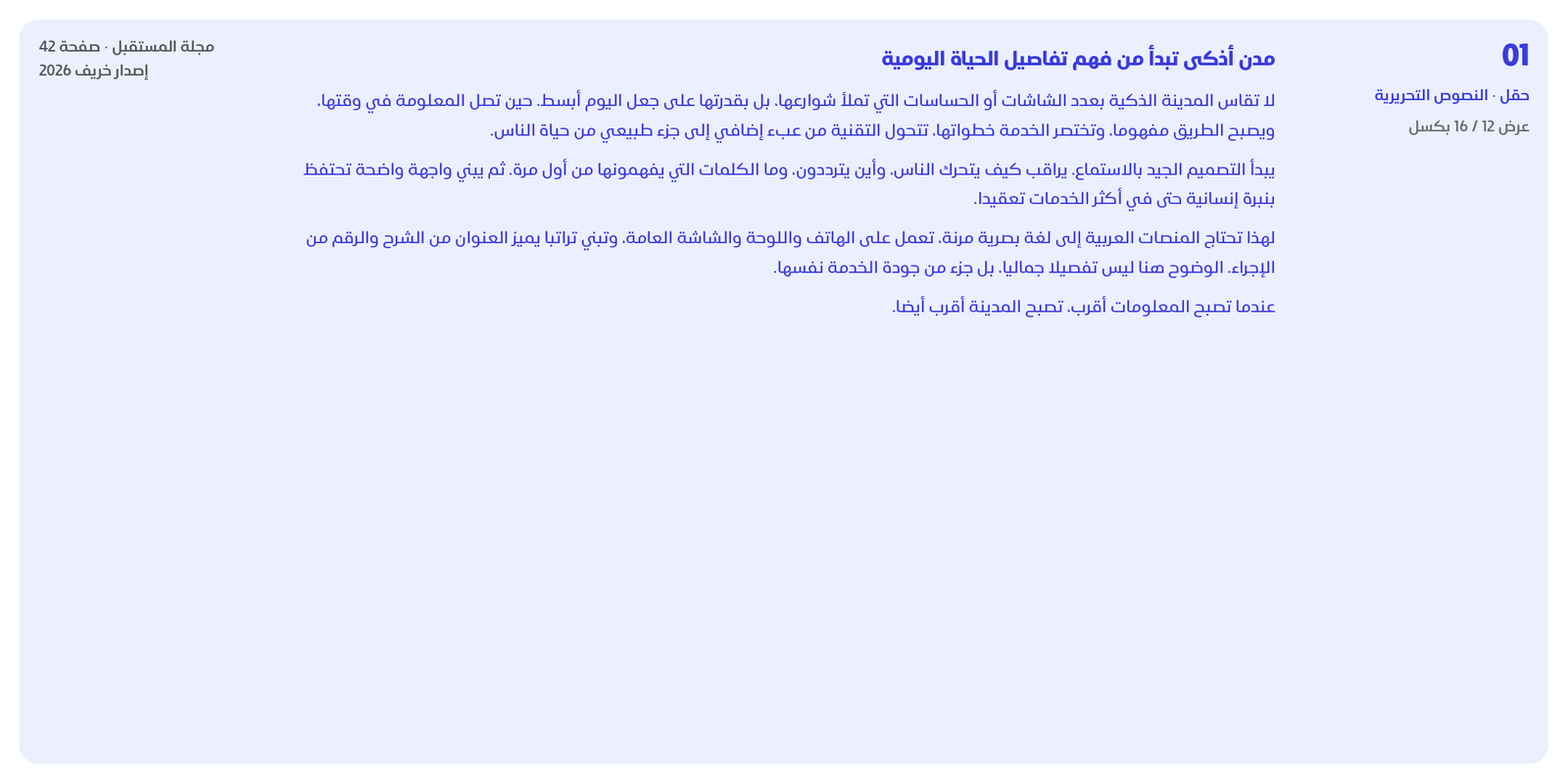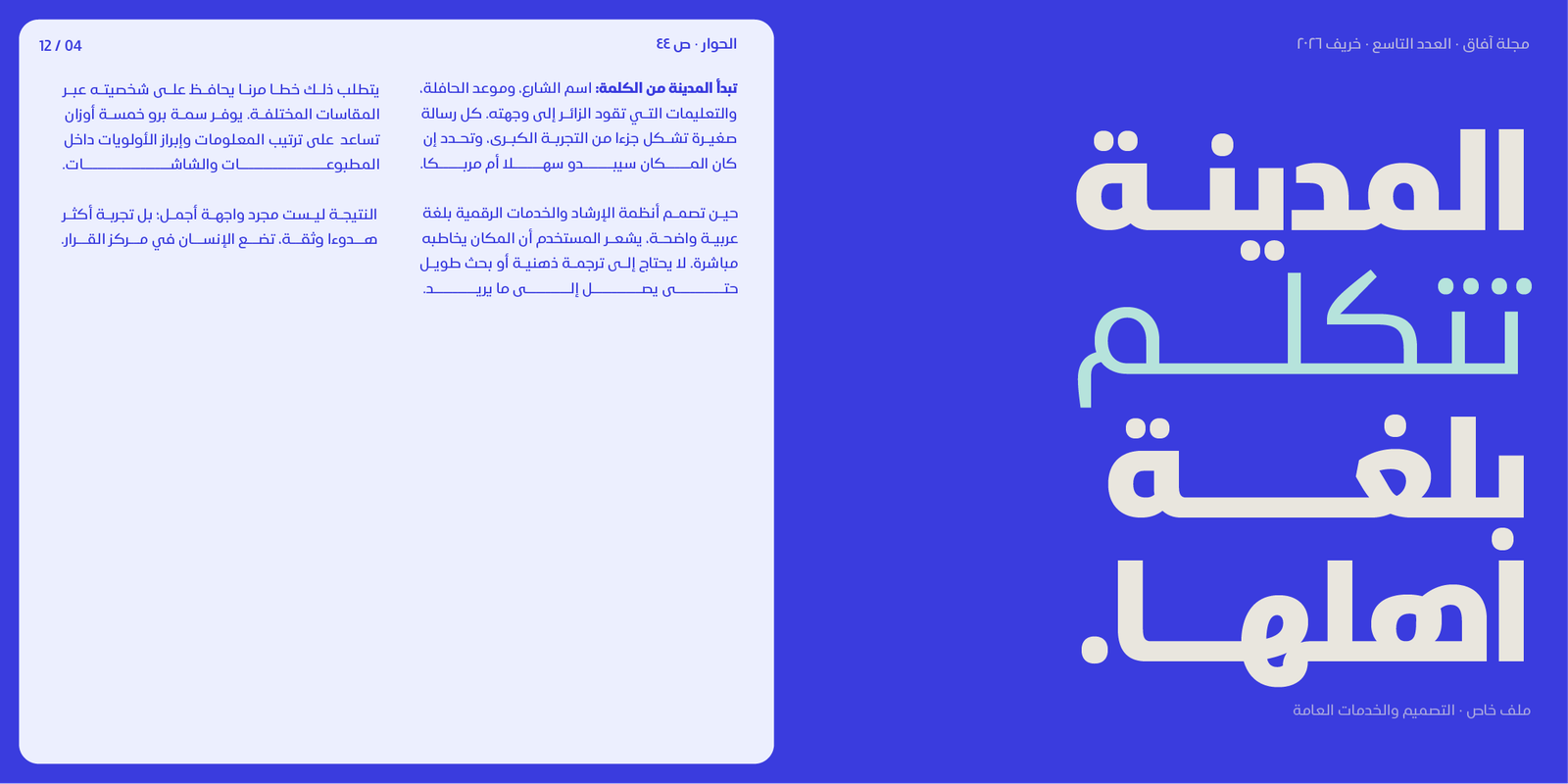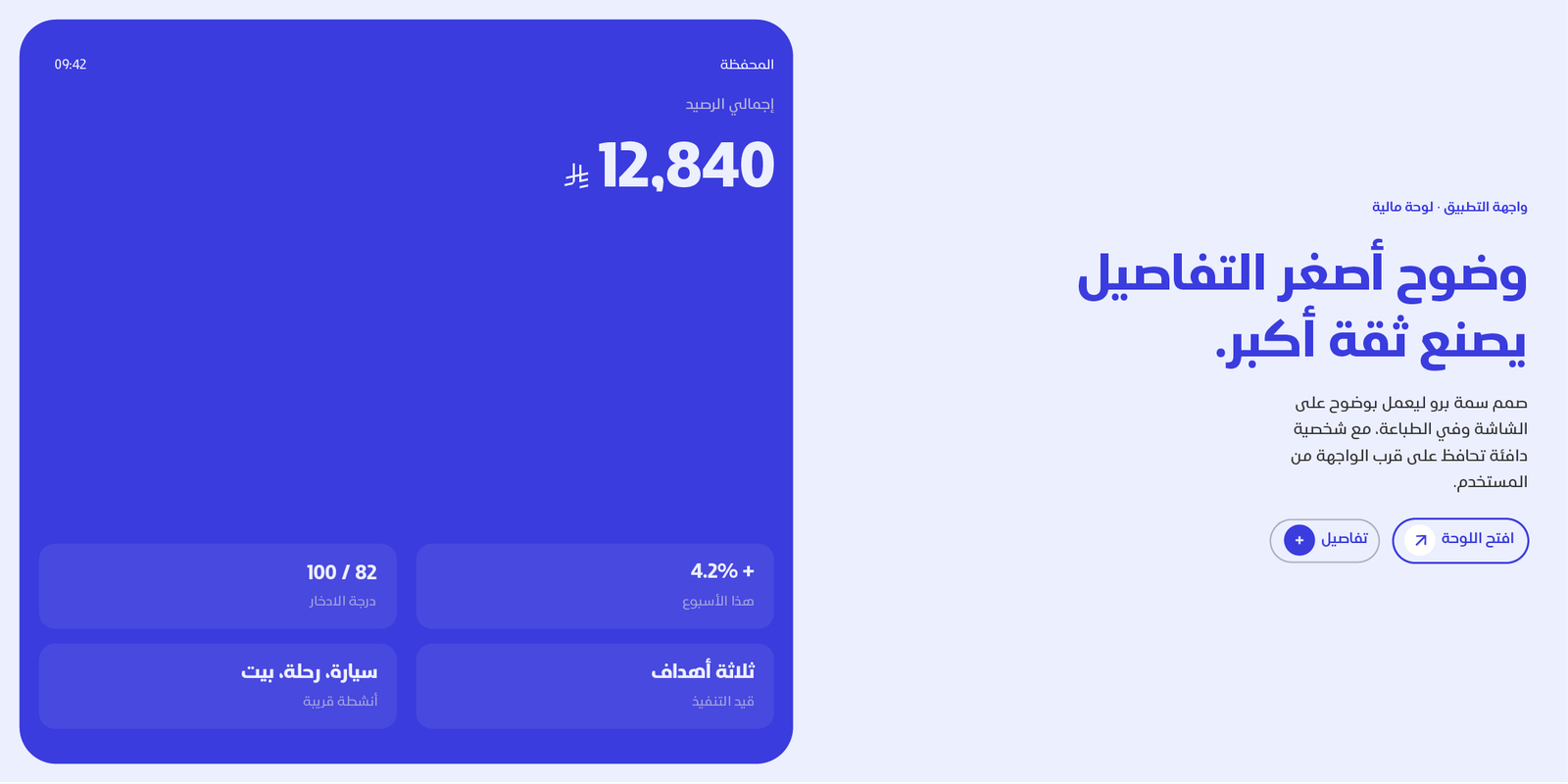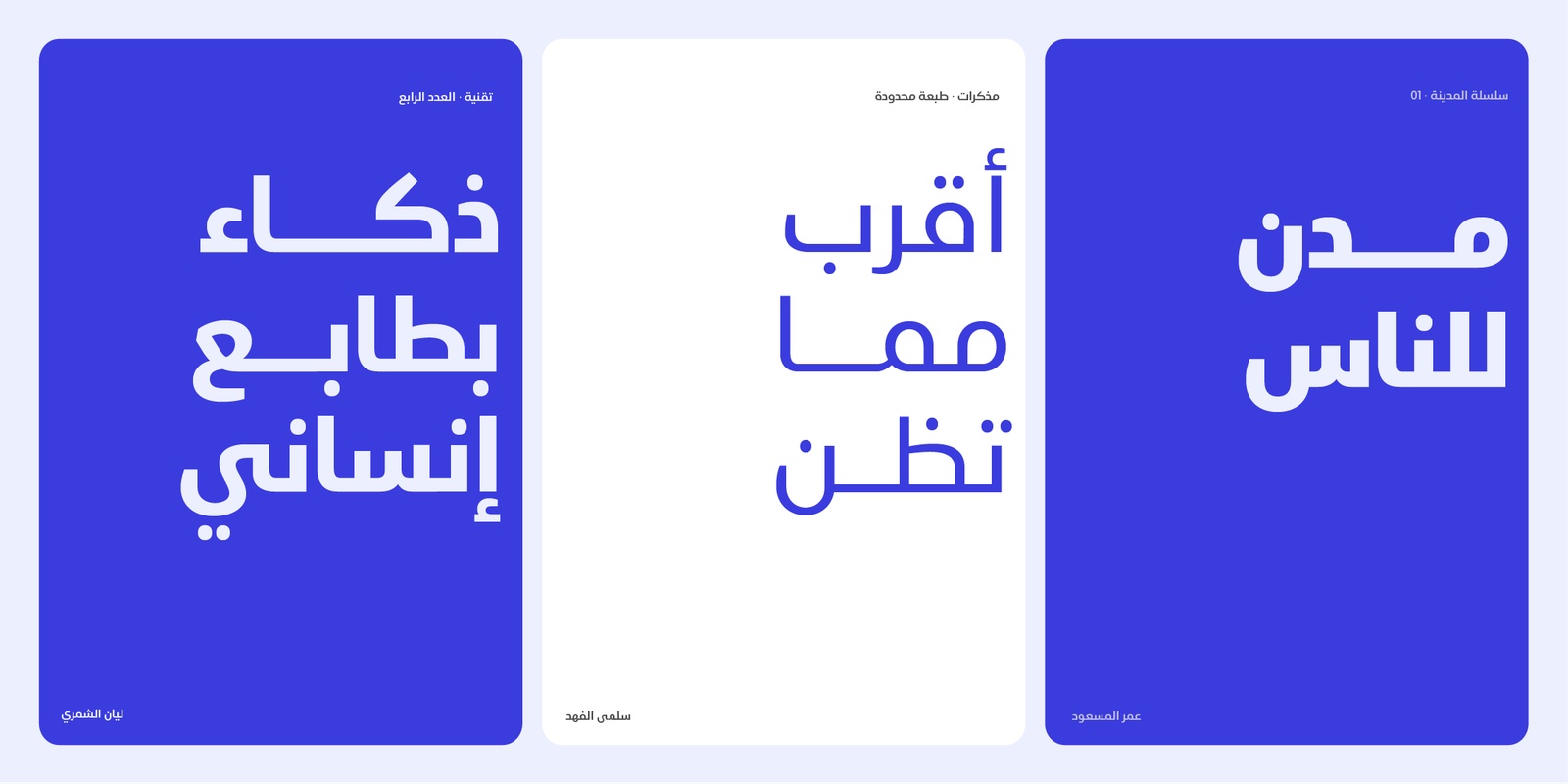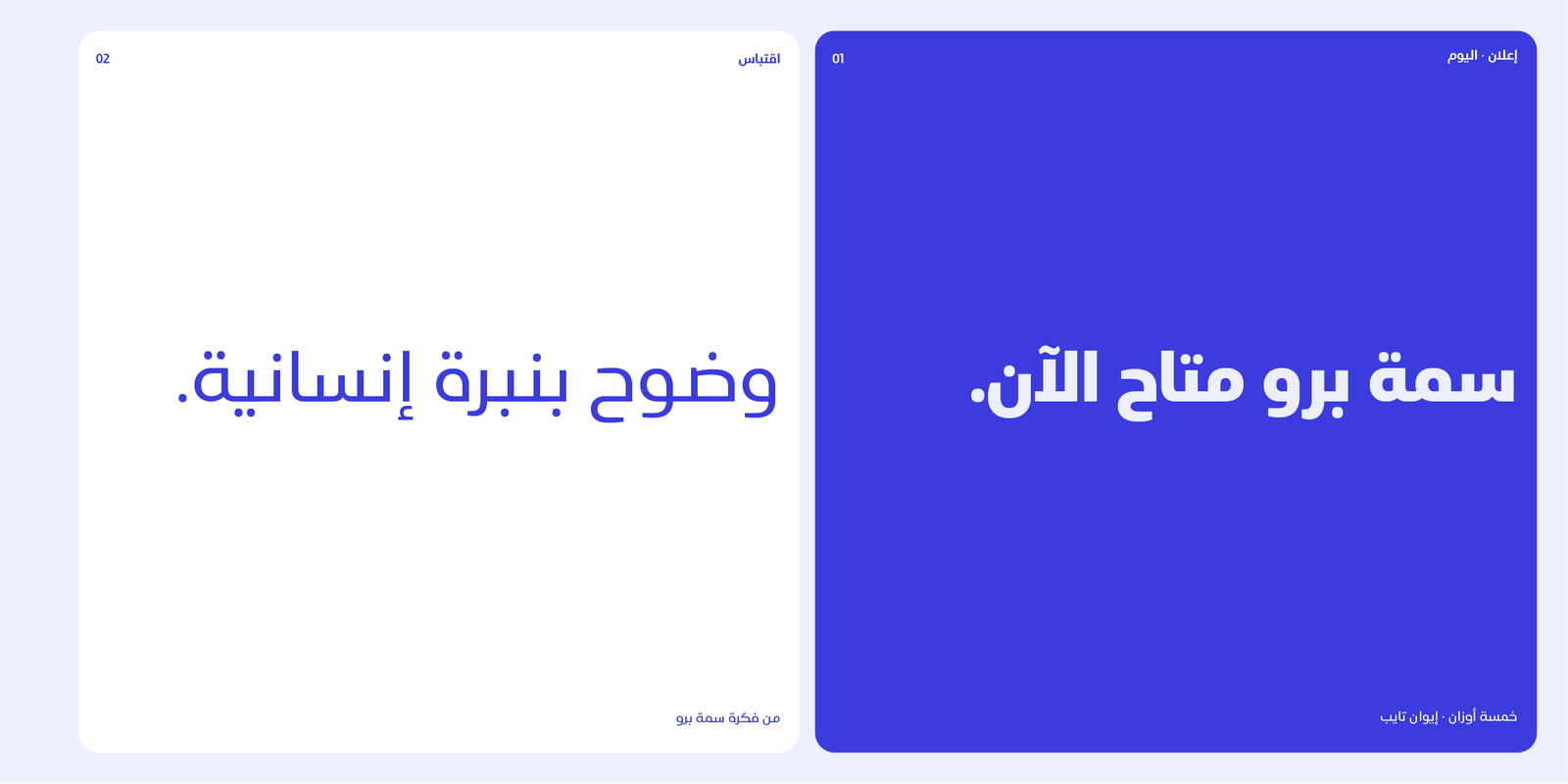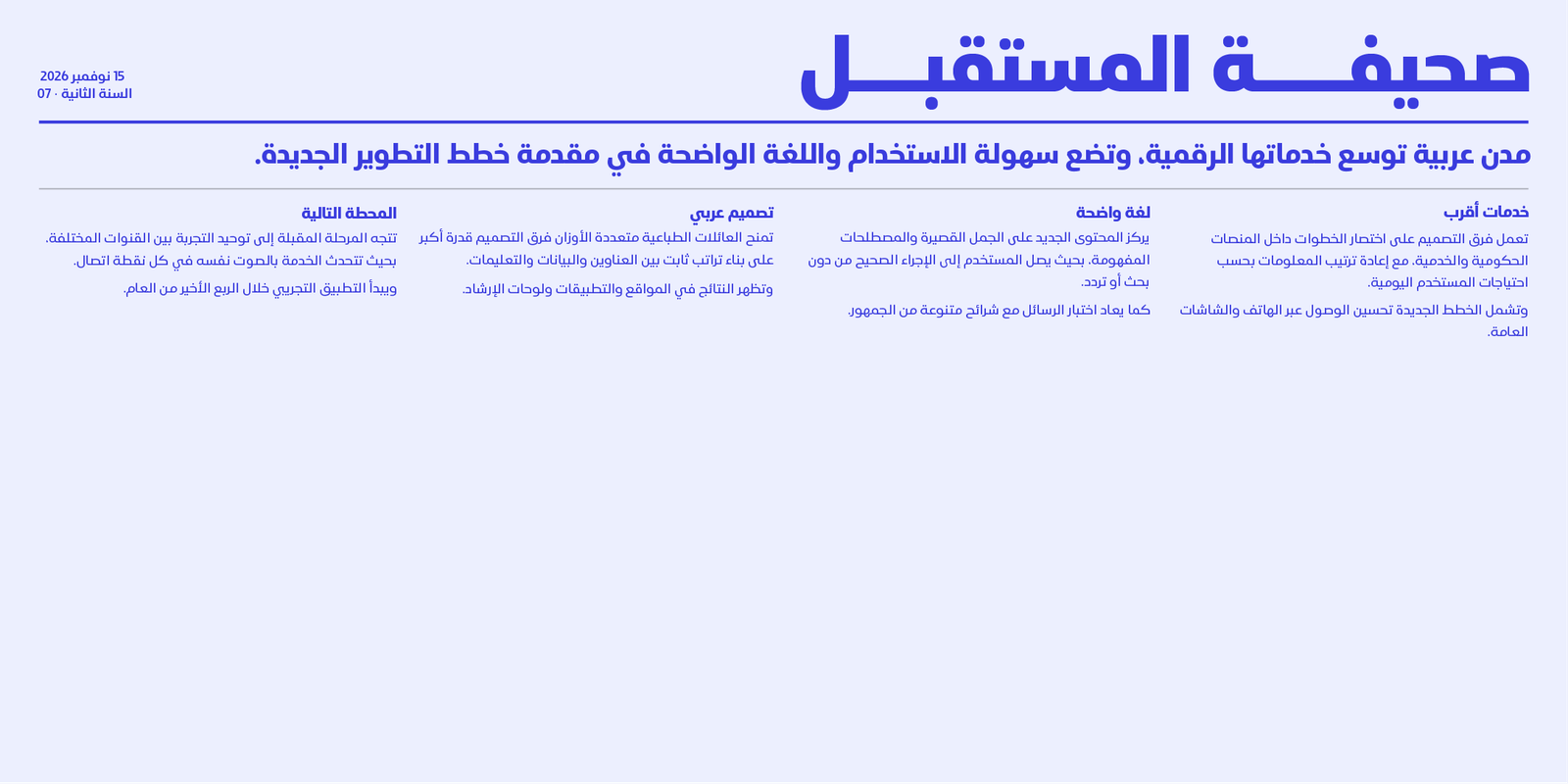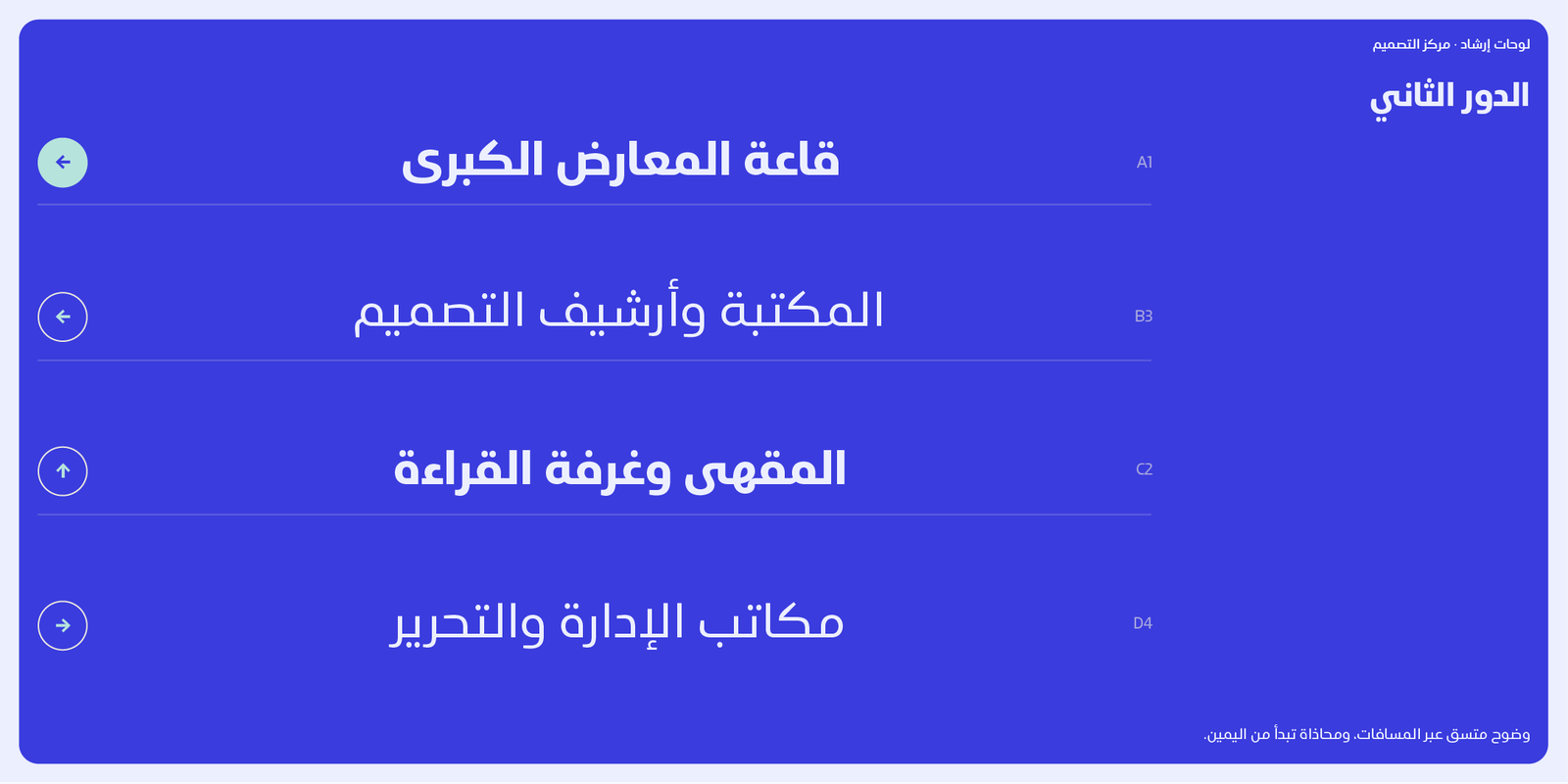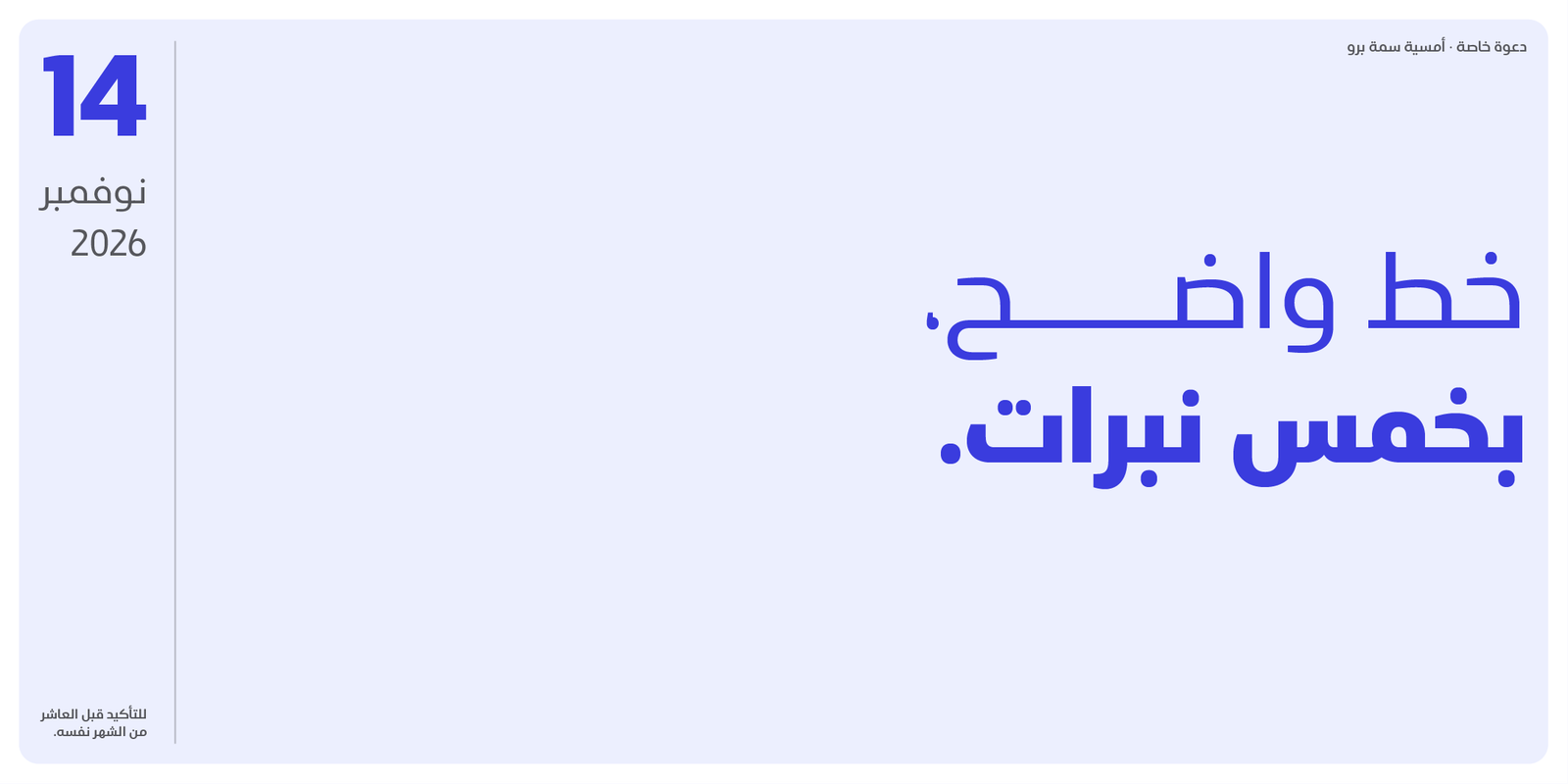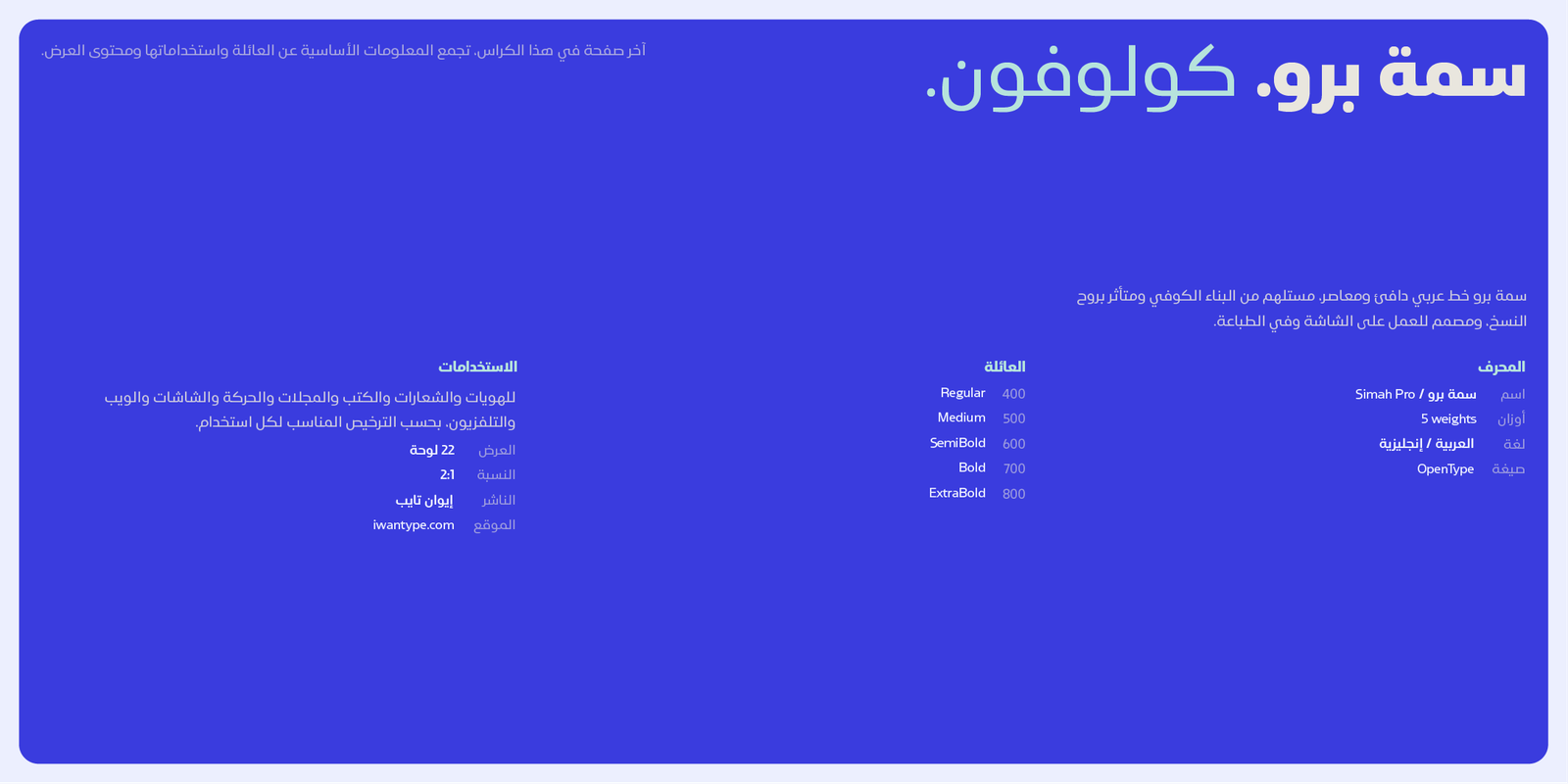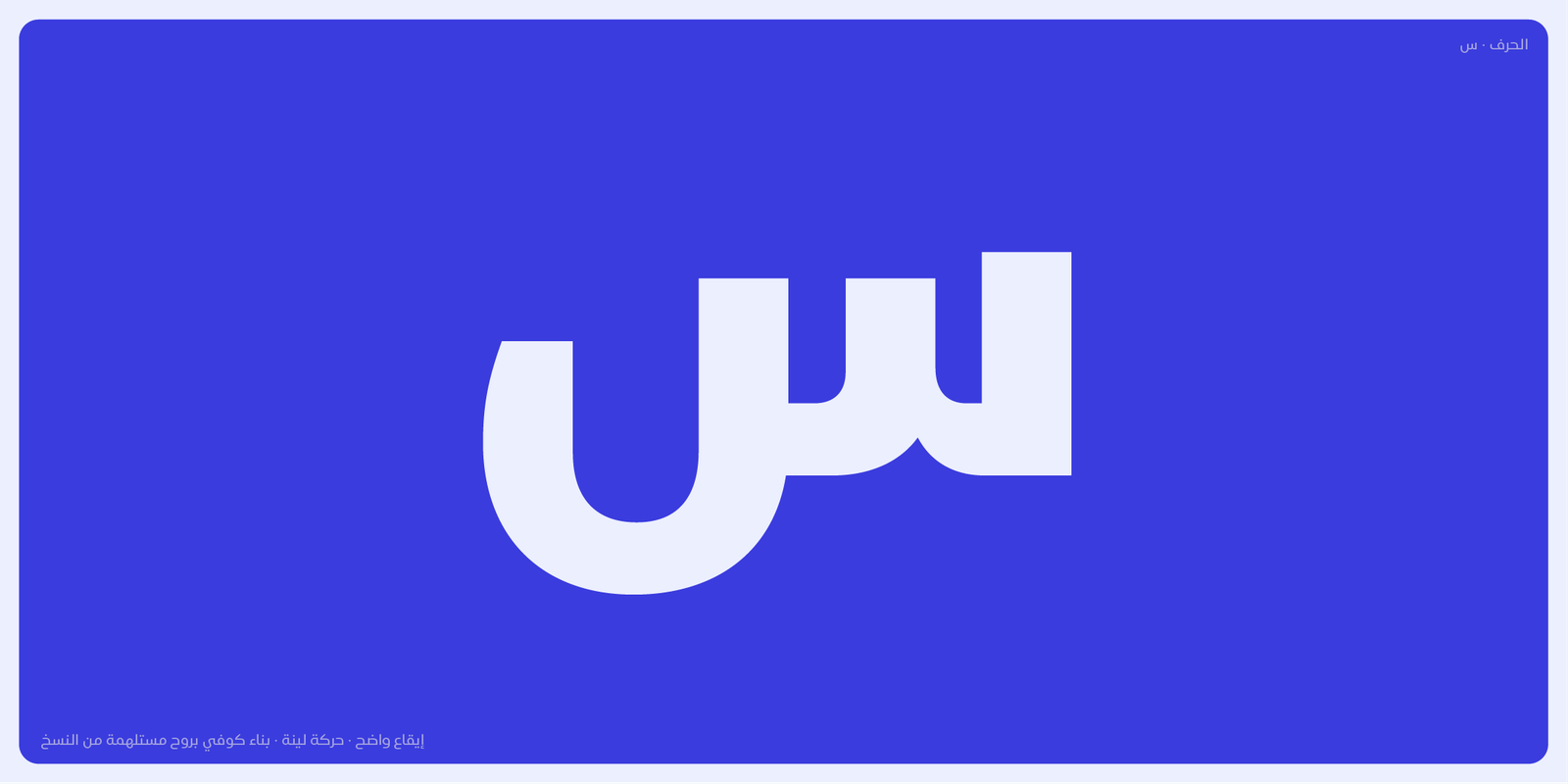
Simah pro typeface – خط سمة برو
Simah pro Arabic is an Arabic typeface from simah family type family
It has a warm and humane feeling. It’s legible, soft, clear, flexible, simple, and contemporary. With a handful set of OpenType features and alternatives.
Simah pro Arabic typeface – خط سمة برو
Simah pro Arabic is an Arabic typeface from simah family type family
It has a warm and humane feeling. It’s legible, soft, clear, flexible, simple, and contemporary. With a handful set of OpenType features and alternatives.
It has an expressive character with its friendly shapes. It’s legible, Clear, Flexible, Simple, Modern. With a handful set of Open Type features and alternatives.
The design is inspired by the Kufic calligraphic style and influenced by the Naskh style.
Simah is highly crafted in order to perform well both on screen and in print. it functions well even on small font sizes. It has a wide range of use possibilities headlines, logotypes, branding, books, magazines, motion graphics, and use on the web and Tv.
Simah Simah pro Arabic consists of five weights